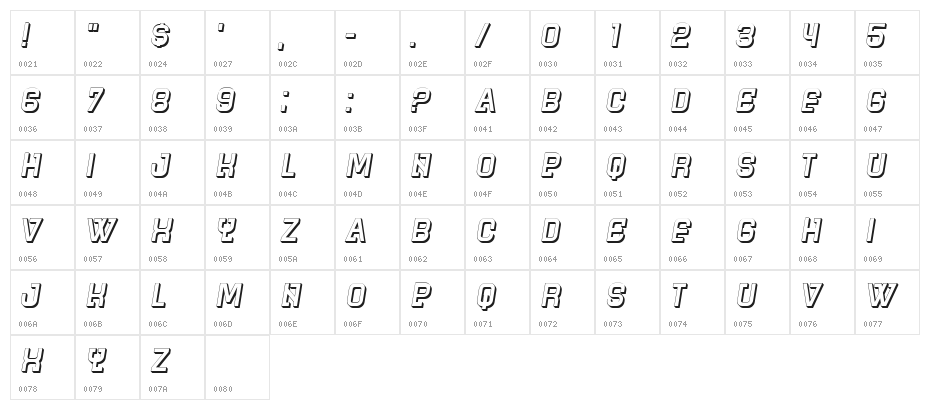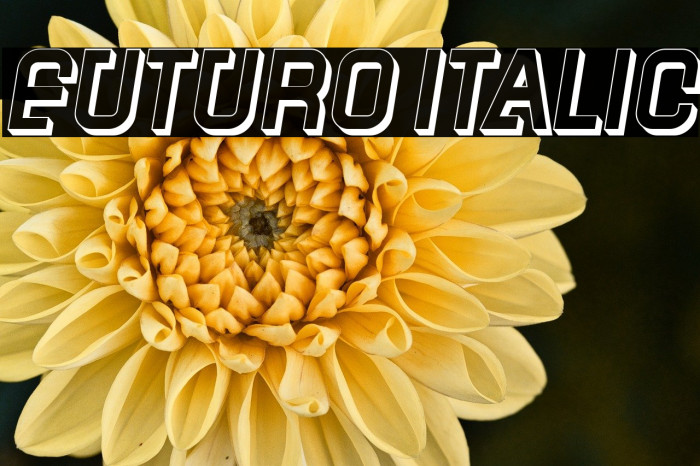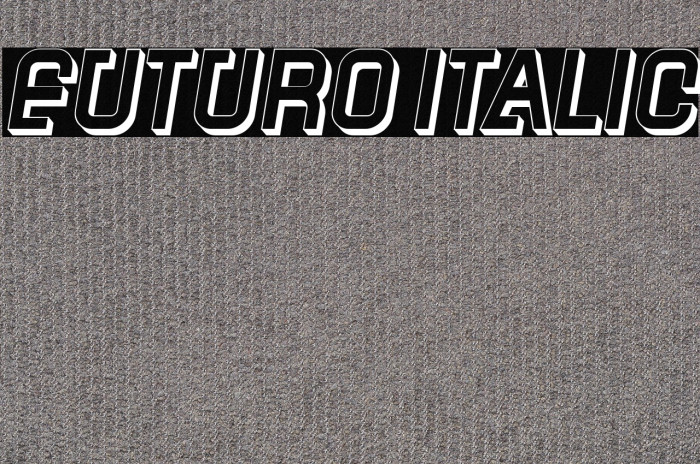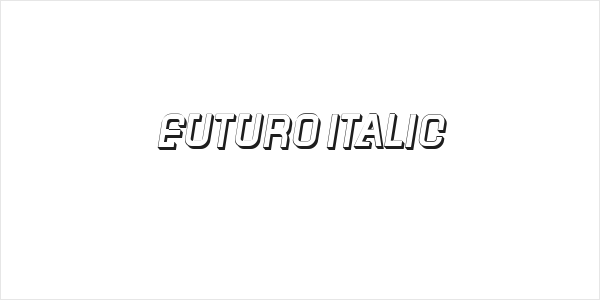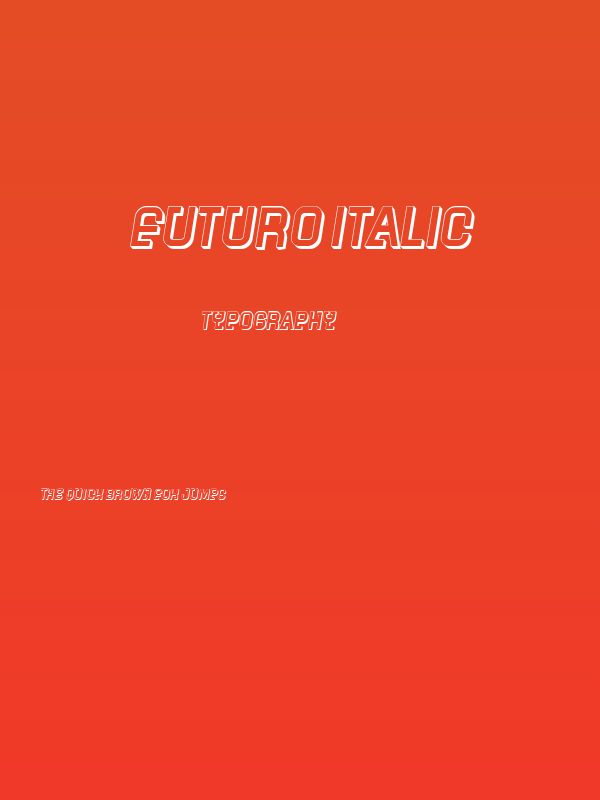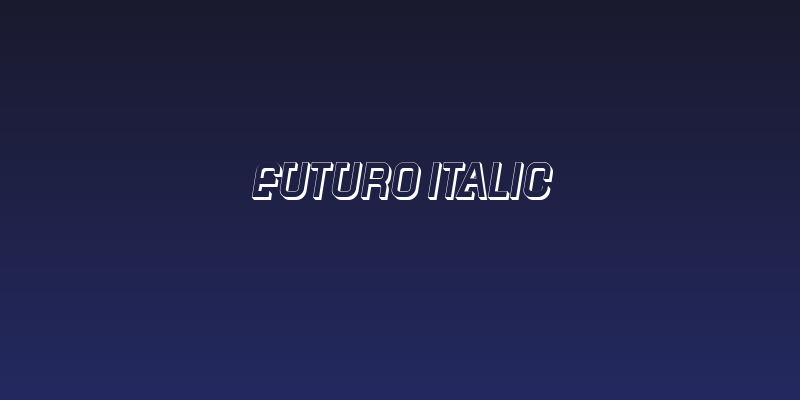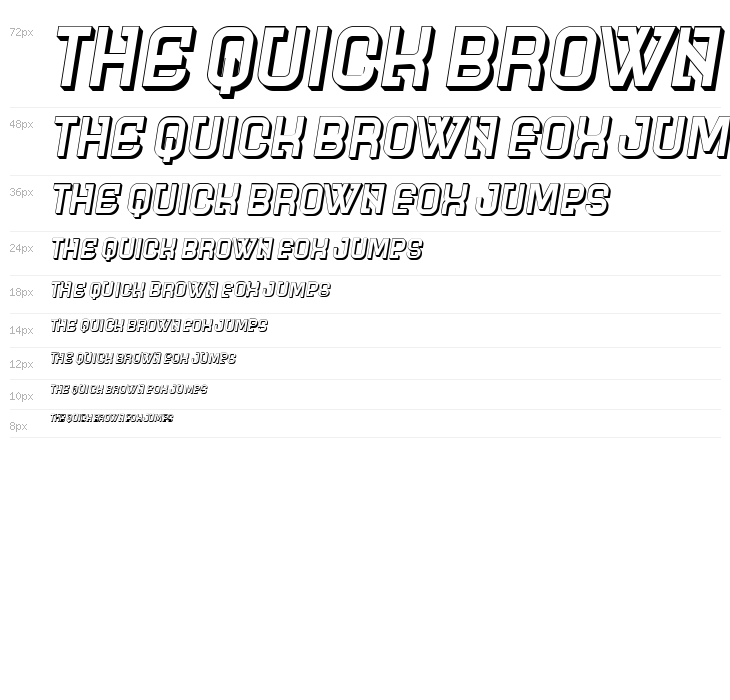
Futuro Italic Font
Futuro Italic Description
This font features a bold, italicized style with a three-dimensional effect created by a shadow outline. The characters are uppercase and have a futuristic, dynamic appearance. The design is clean and geometric, with sharp angles and a consistent stroke width. The numbers and special characters follow the same stylistic approach, maintaining uniformity across the set. The italic slant adds a sense of motion and energy, making it suitable for eye-catching designs.
| Proposed Projects | Ideal for sci-fi themed projects, video game titles, posters, and branding that requires a modern and dynamic look. |